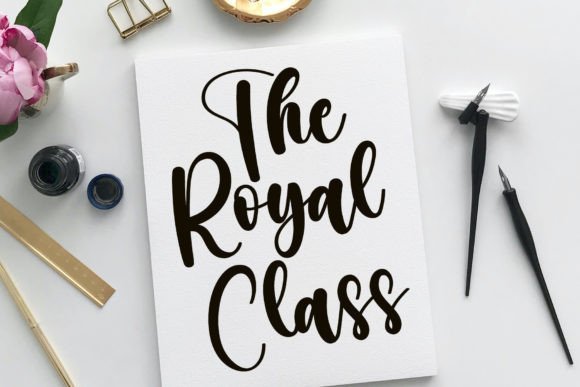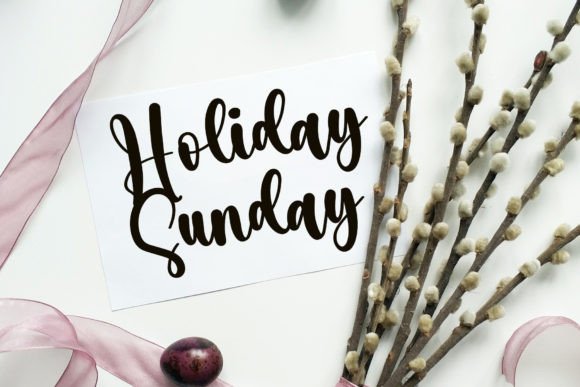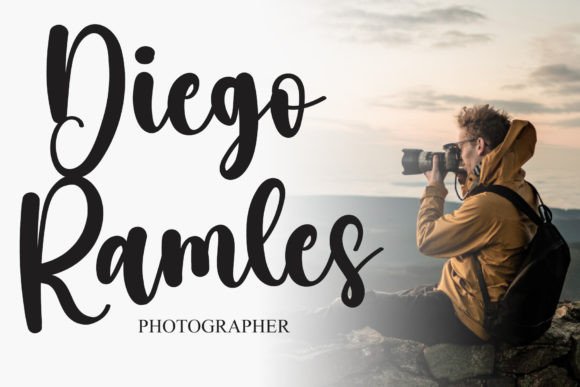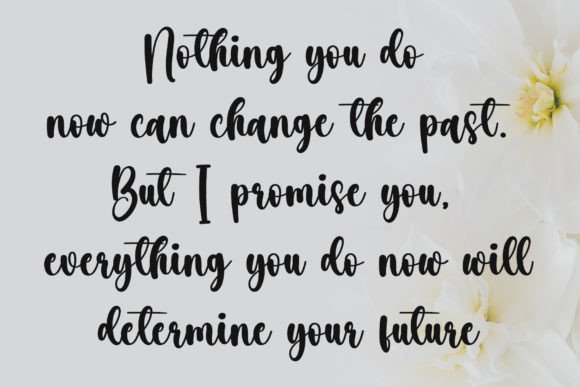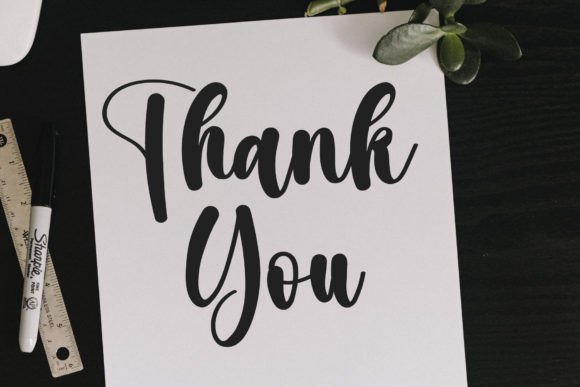
Unleash Your Creativity with Beaching Font
Have you ever sat down with a blank sheet of paper, a pen, and a spark of inspiration, only to be met with a blank stare? We’ve all been there. But what if that blank sheet of paper was the starting point to creating something truly magical? For designers, artists, and creatives, finding the perfect font can be the difference between a good design and a great one.
Enter the Beaching Font, a carefully crafted handwritten font designed to add a touch of elegance to your designs. Whether you’re creating a beautiful Instagram post or a calligraphy script for a DIY project, this font will help you turn your creative idea into a true work of art. With its unique and stylish aesthetic, the Beaching Font is a valuable addition to any designer’s toolkit, offering endless possibilities for creative expression.
Beaching Font Key Features
- Unique Characteristic: Beaching Font features a unique, hand-drawn design with a mix of modern and vintage elements, perfect for creating a distinctive and eye-catching visual identity.
- Size: The font family includes multiple weights, from Thin to Black, allowing designers to choose the perfect weight to match their design needs.
- Resolution: Beaching Font is designed to work well at high resolutions, making it ideal for use in print and digital applications where crisp, clear typography is essential.
- Language Support: The font includes comprehensive language support, covering a wide range of languages and scripts, making it a versatile choice for global design projects.
Beaching Font Review
I recently had the chance to work with Beaching Font, and I must say it’s a font with some great qualities. Here’s my honest review.
- Unique Beachy Vibes: Beaching Font does a great job of capturing the relaxed, casual feel of the beach. It’s perfect for projects that need a carefree, summery vibe.
- Clear Legibility: The font is well-designed for clear readability, making it easy to read even at smaller sizes.
- Wide Character Set: Beaching Font has a wide range of characters, including international characters and symbols, making it versatile for different projects.
- Limited Bold and Italic Options: While the font has a nice bold weight, the italic option feels a bit off, and the bold-italic combination is not ideal.
- Not Ideal for Small Text: While the font is clear at larger sizes, it can become blurry and difficult to read at smaller sizes.
Beaching Font is a solid choice for projects that need a beachy, casual feel. While it has some limitations, its unique vibe and clear legibility make it a great option for designers looking for a fun and carefree font.
Beaching Font: A Practical Application Guide
For the most effective use of Beaching Font, experiment with different combinations of font sizes, colors, and styles. Use Beaching Font for headings or titles to create visual hierarchy and draw attention to important information. Beaching Font is particularly effective for creating beach-themed designs, such as invitation templates or promotional materials for summer events.
Alternatives to Beaching Font
Open Sans is a modern sans-serif font that works well for digital interfaces, publications, and other content. It’s highly legible and versatile, making it suitable for various design projects. Unlike Beaching Font, Open Sans is more neutral and doesn’t have the same level of playfulness.
Lato is a clean and elegant sans-serif font that’s perfect for corporate, web, and mobile applications. It’s highly customizable and offers a wide range of weights, making it an excellent choice for designers who want a font that’s both sophisticated and adaptable. While Beaching Font is more casual and playful, Lato is more professional and polished.